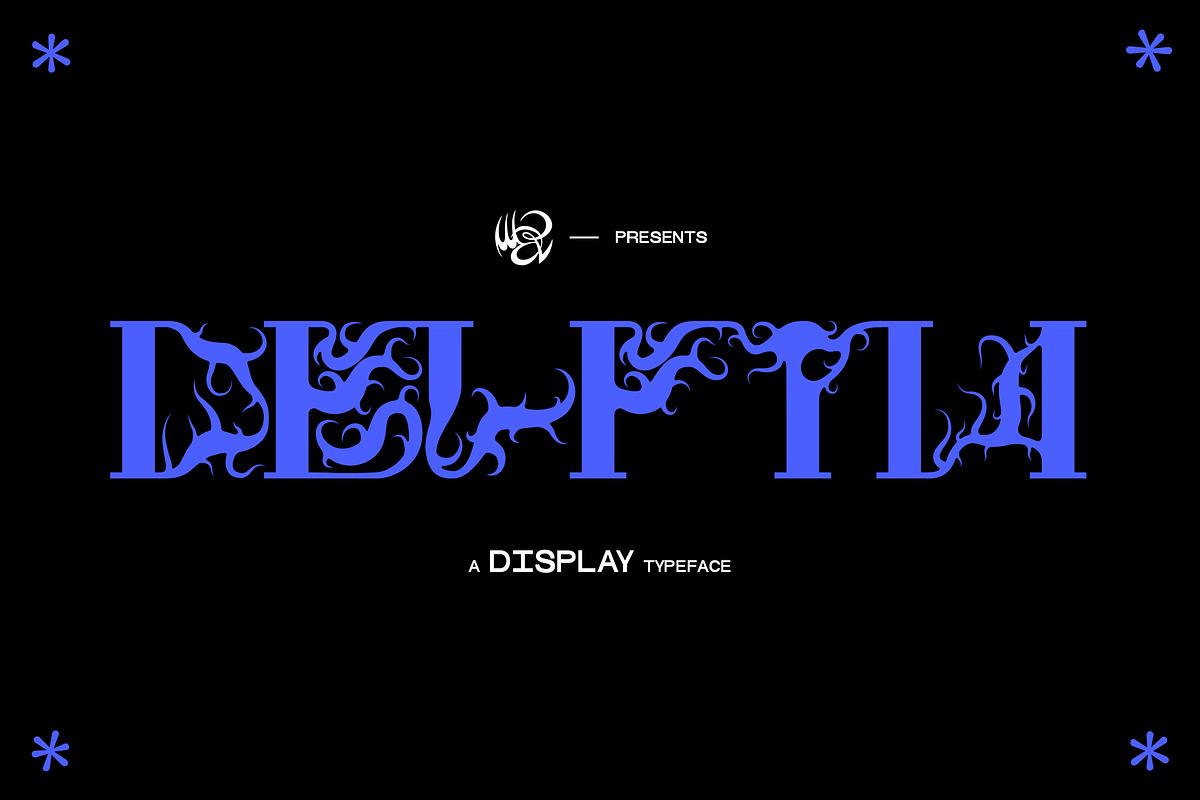
DELFTIA Display Typeface Free Download
DELFTIA Display Typeface Free Download is a bold and artistic serif font designed to make a statement in any creative project. Whether you're designing posters, packaging, headlines, or branding materials, DELFTIA brings a unique and classy vibe that effortlessly catches attention. Its sculptural letterforms and stylish curves make it ideal for luxury, fashion, and editorial design.
Inspired by classic typography with a modern twist, DELFTIA Display Typeface balances elegance and strength. Its detailed serifs and distinctive uppercase characters offer versatility across both print and digital platforms. Whether you're a graphic designer, art director, or hobbyist, adding DELFTIA to your type library enhances your creative toolkit.
DELFTIA Display Typeface Free Download is perfect for those seeking a typeface that stands out without overwhelming the design. The test version lets you explore its capabilities before committing to a commercial license. If you're working on a brand identity or a visual concept that demands attention, this typeface could be your ideal match. Give your next project a sophisticated edge with this eye-catching display font.